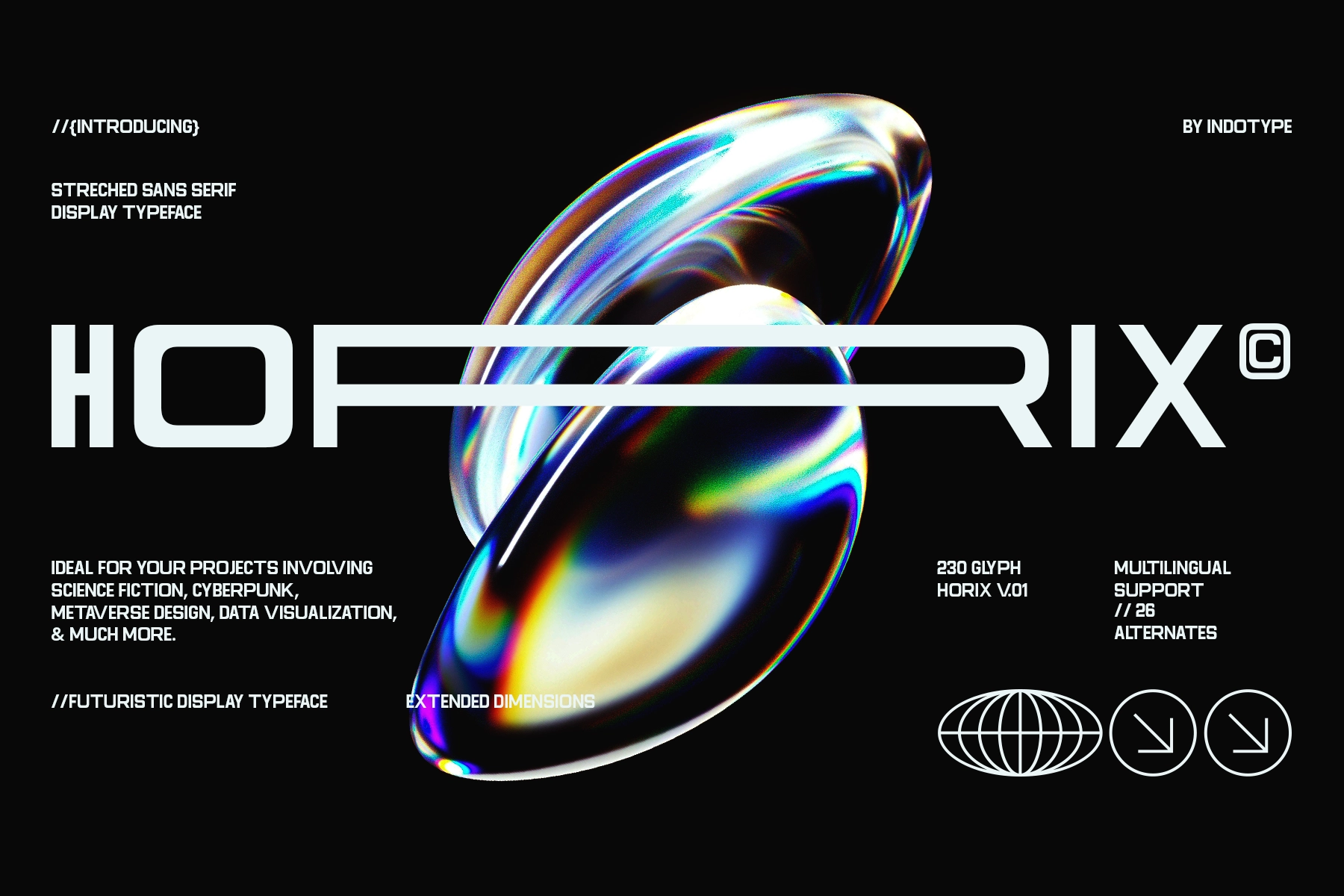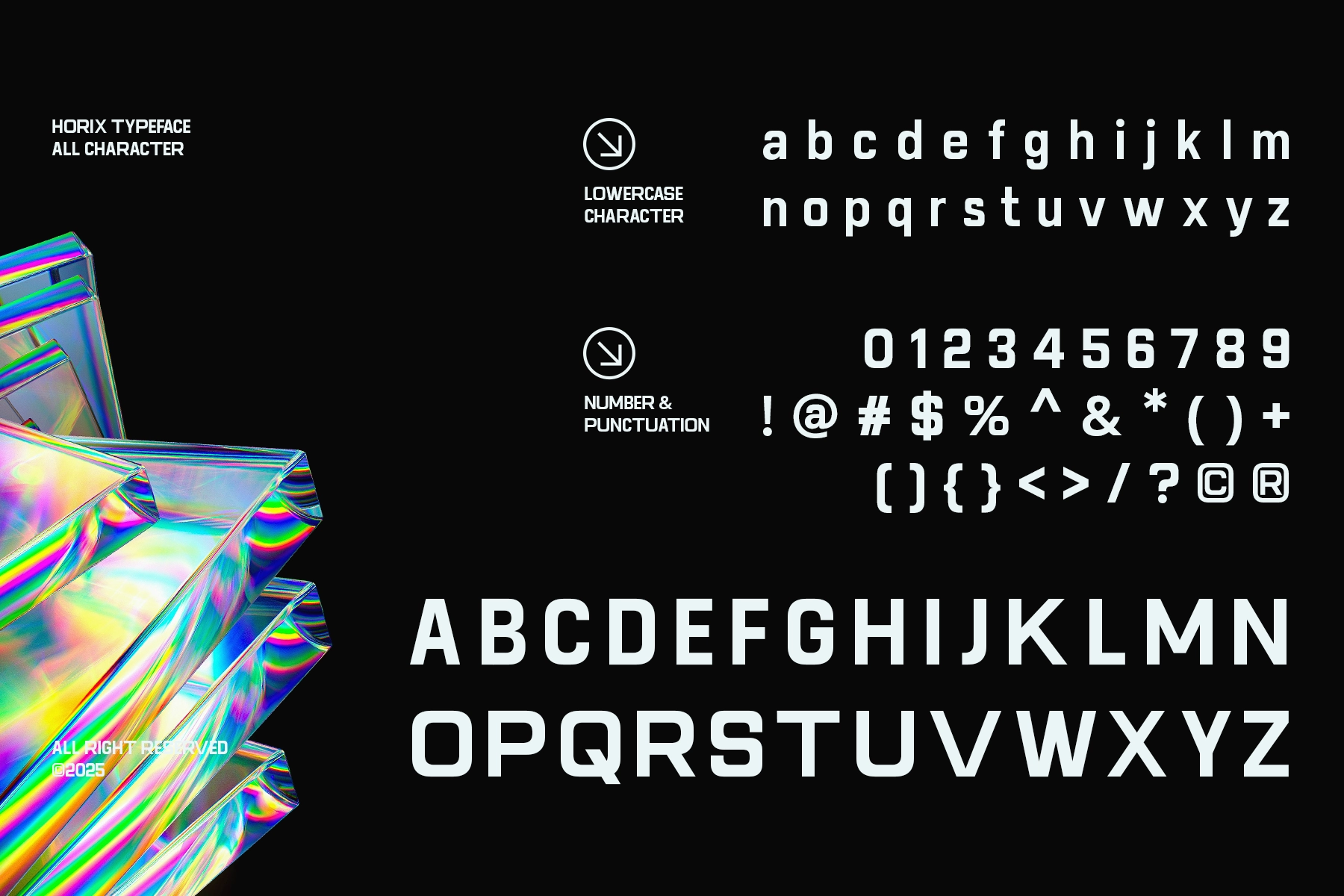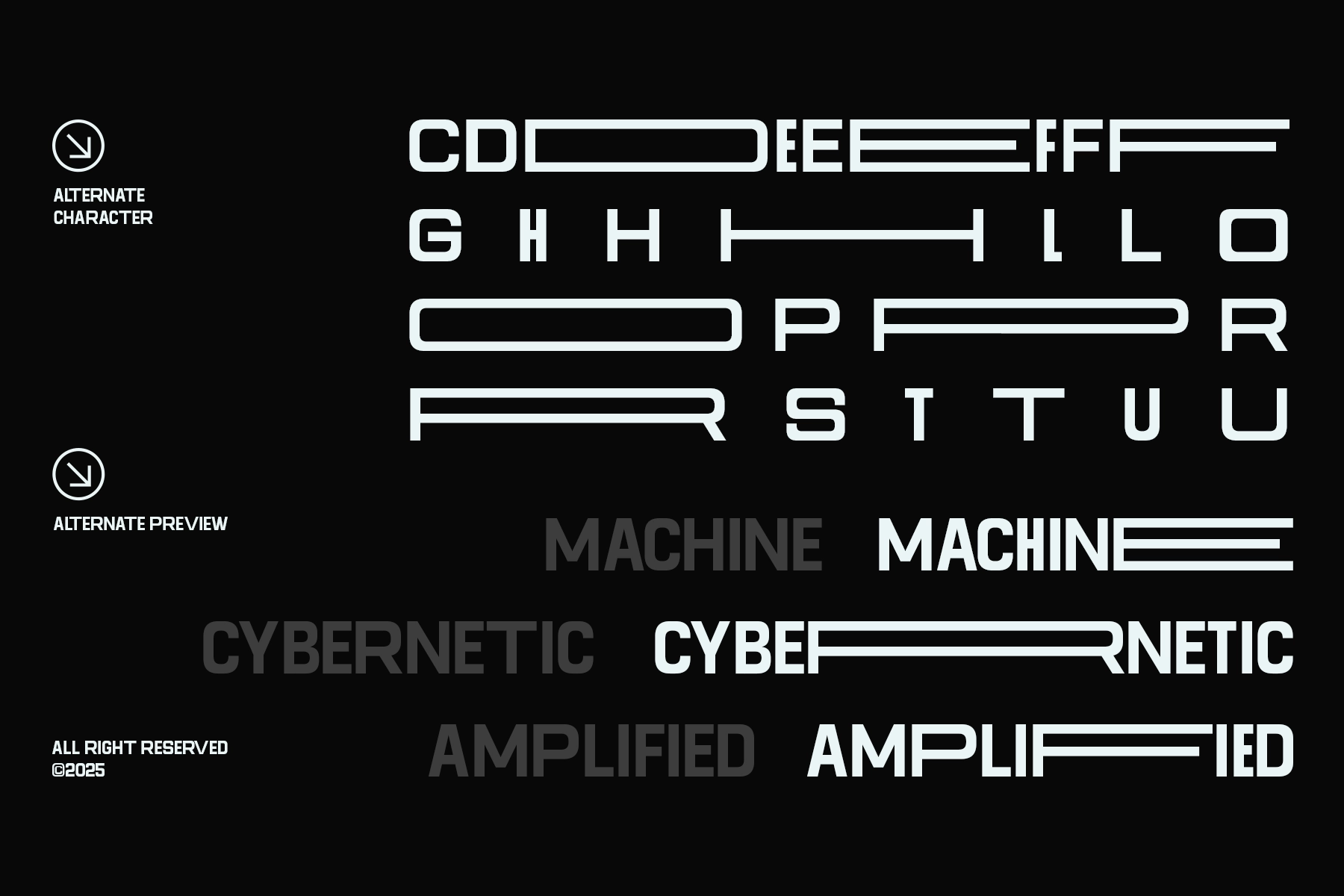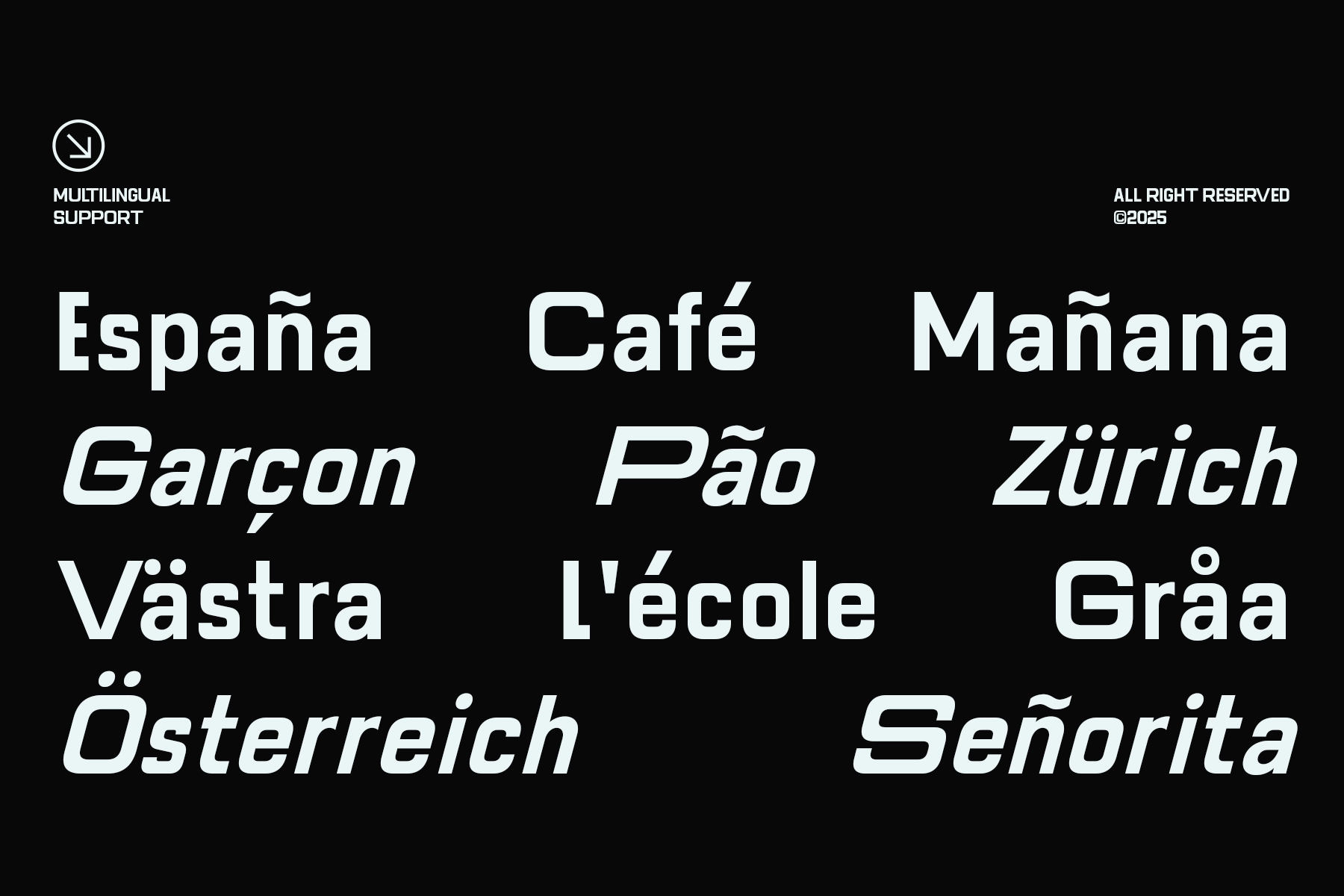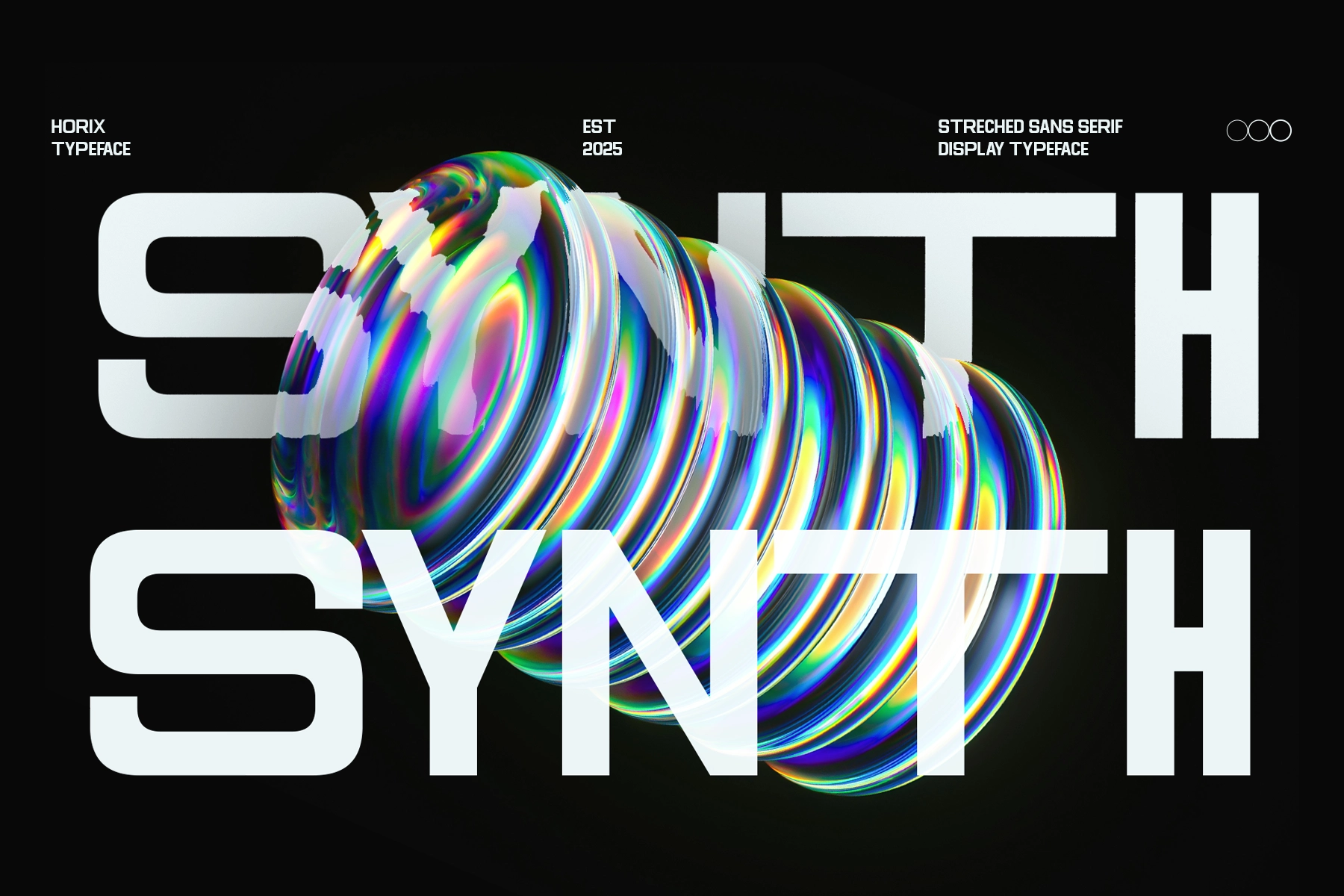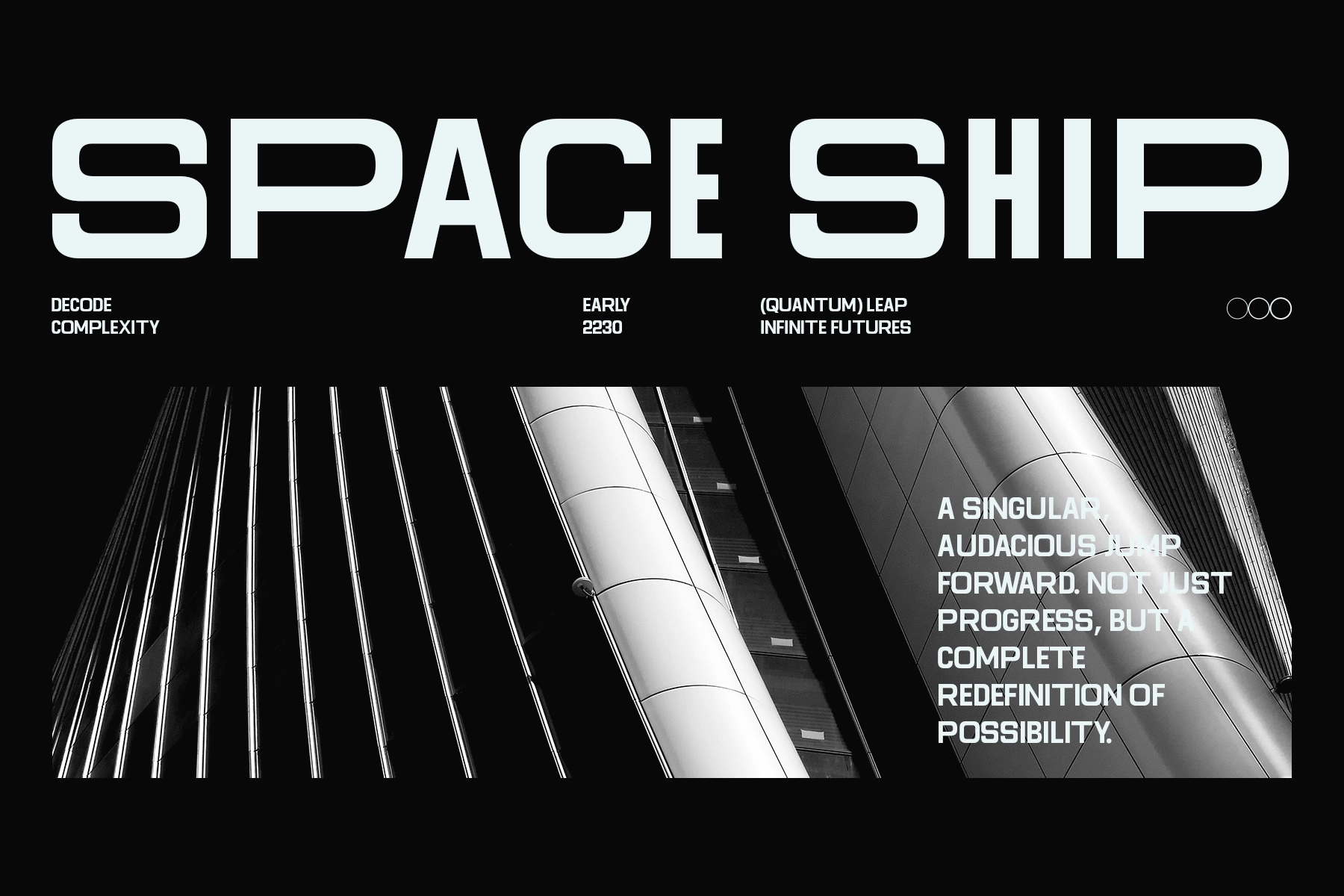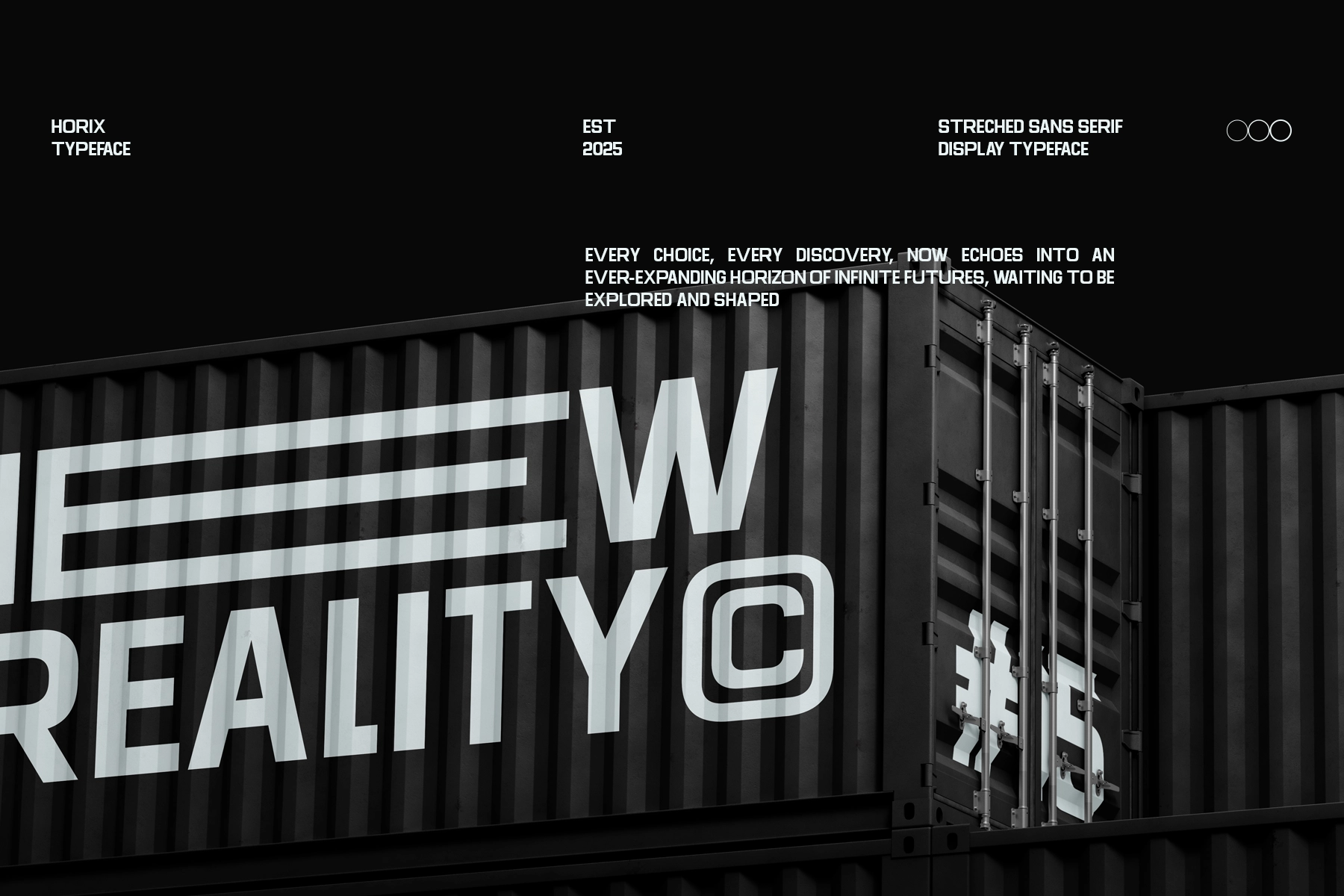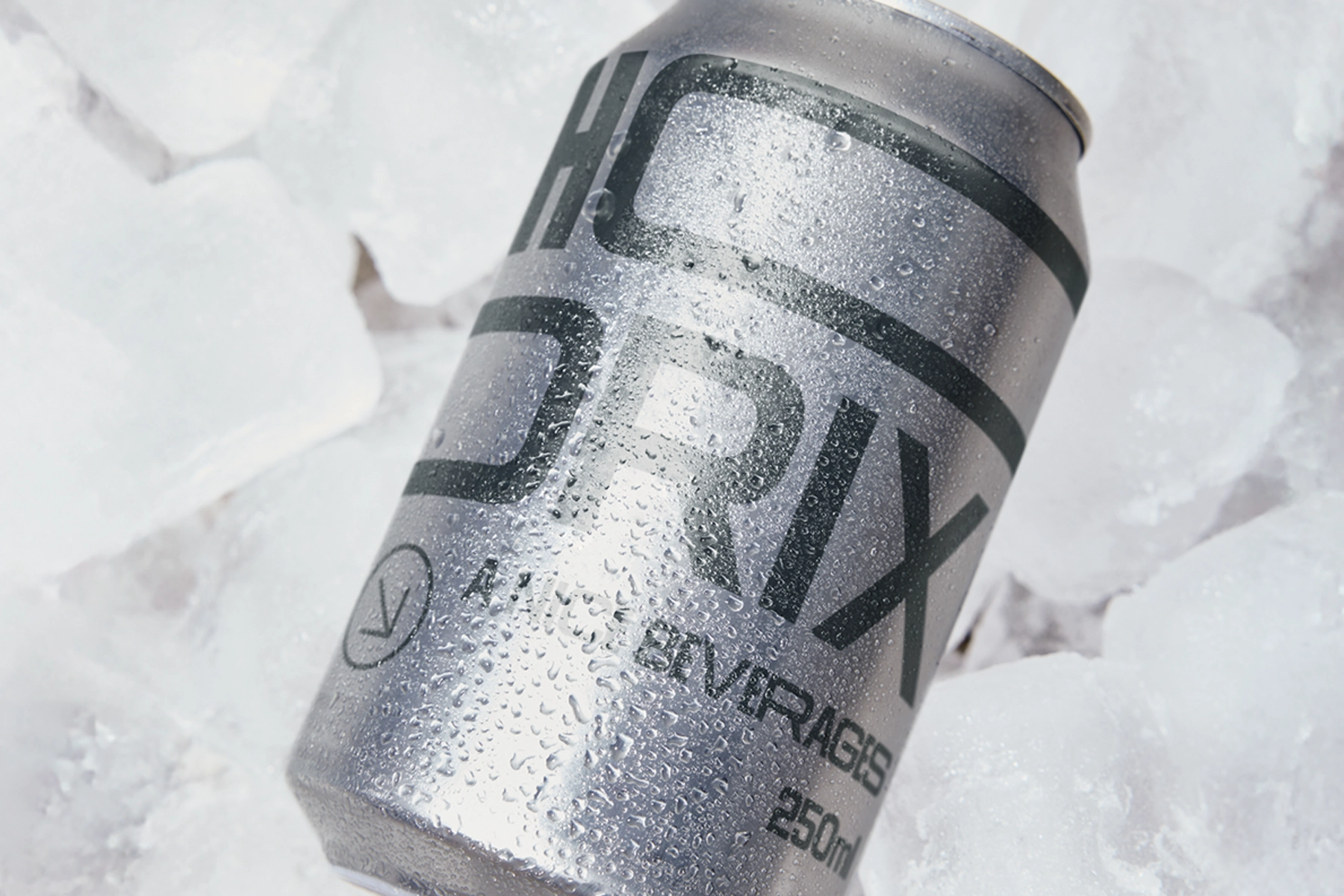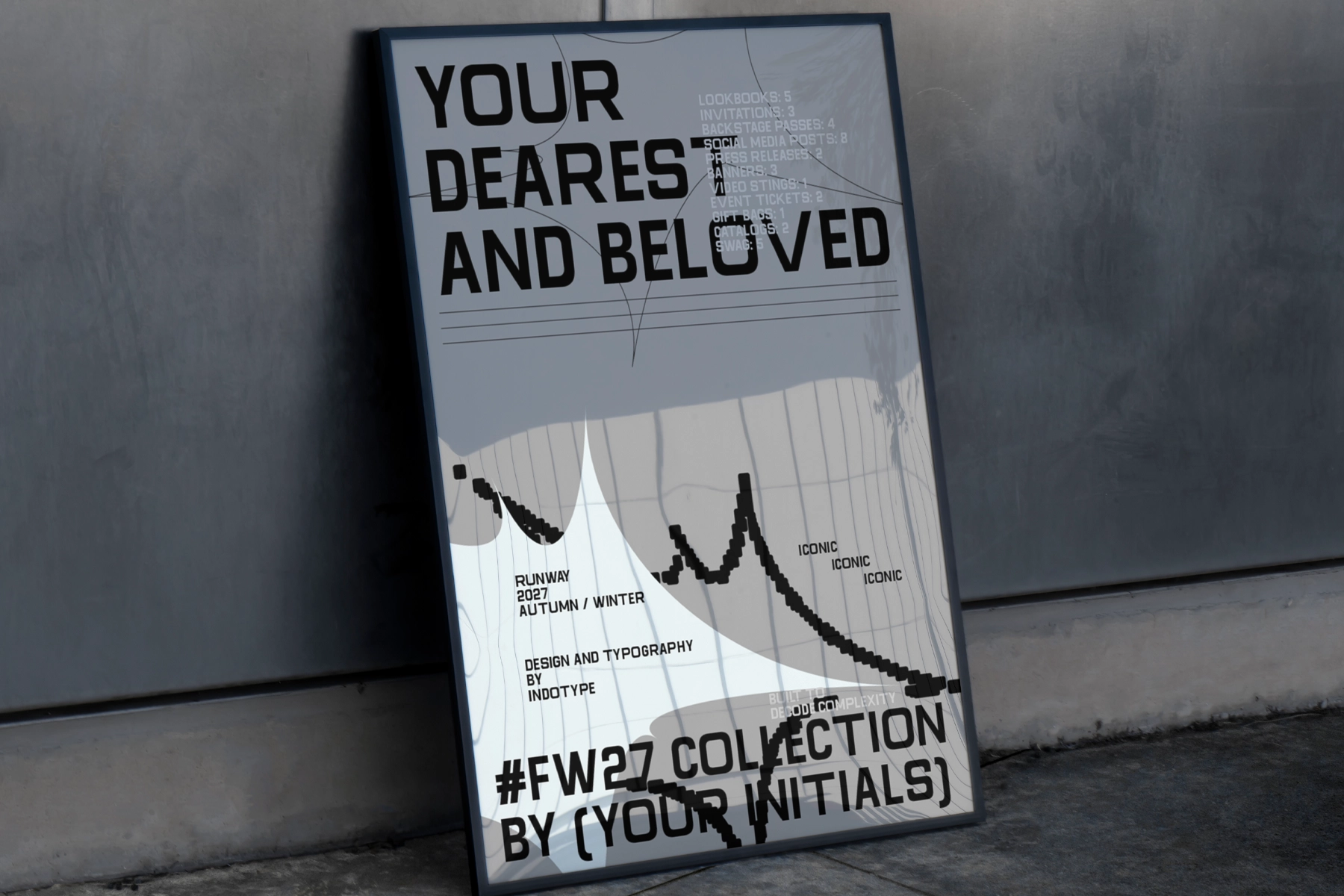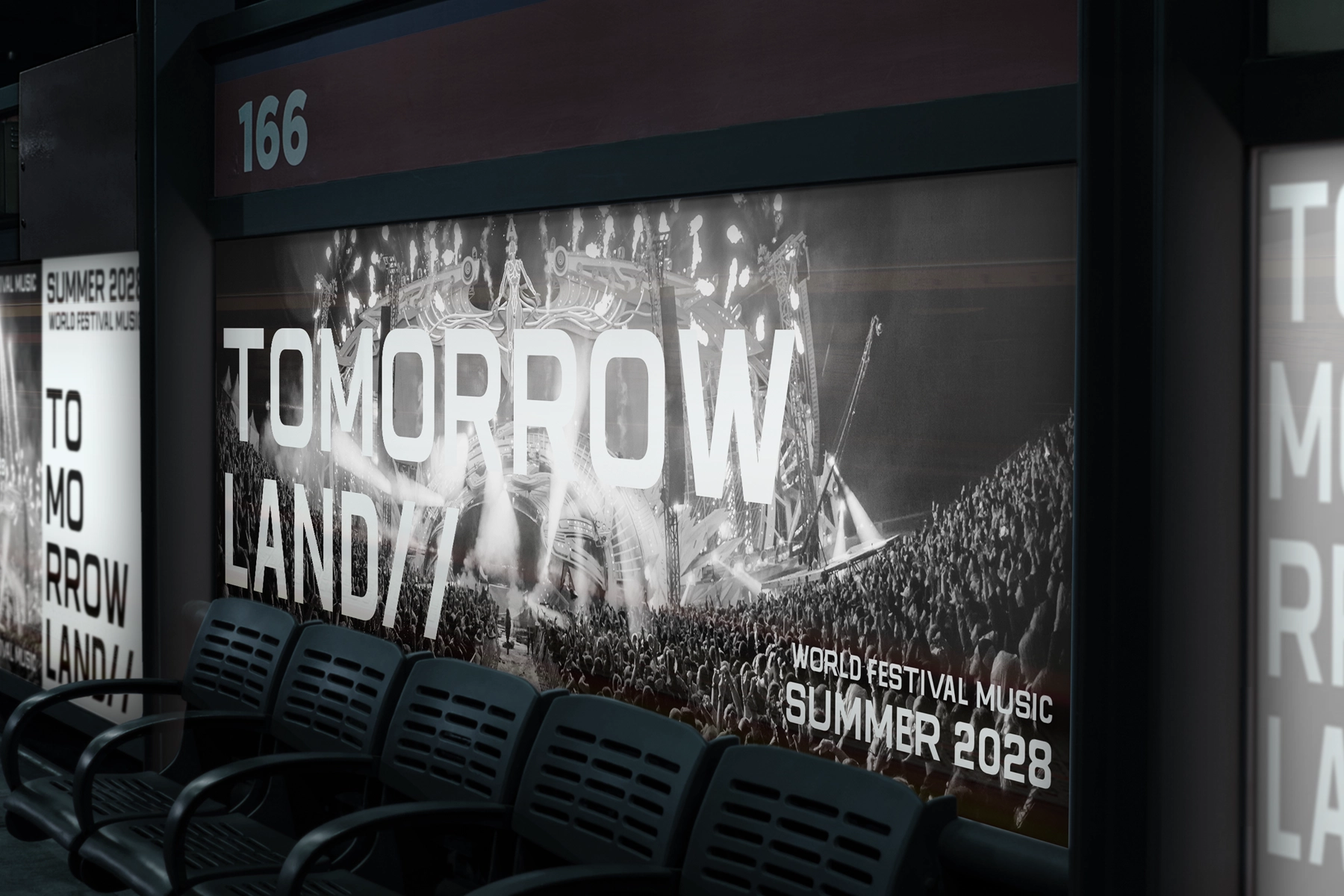
Horix - Modern Wide Sans Serif Font
This futuristic typeface is wide, squared, and engineered with a clean sci-fi edge. Its extended letterforms, sharp terminals, and alternate characters create a technical look suited for screens, systems, and anything with a suspicious amount of chrome.
Use Horix for sci-fi posters, cyberpunk titles, gaming interfaces, tech branding, esports graphics, data dashboards, app visuals, digital product launches, album covers, motion titles, event identities, packaging, and more. The alternates add a machine-like rhythm to key words, giving headlines the kind of precision that probably has its own access card.